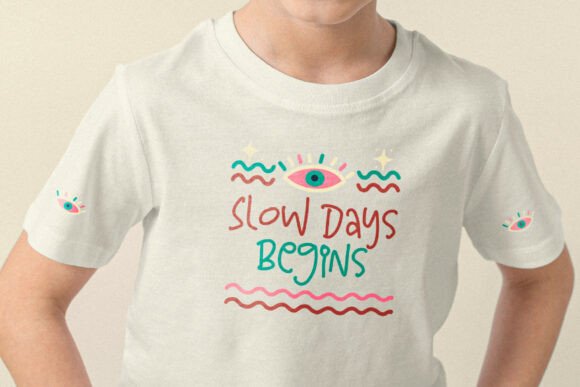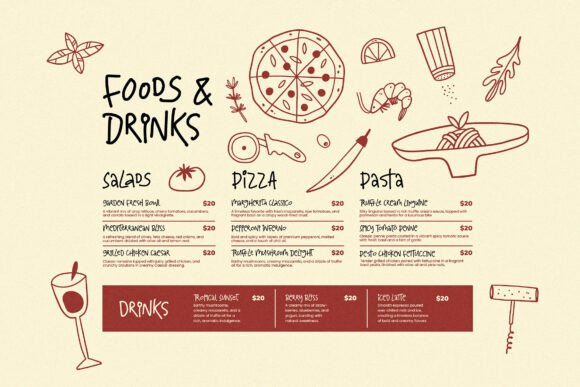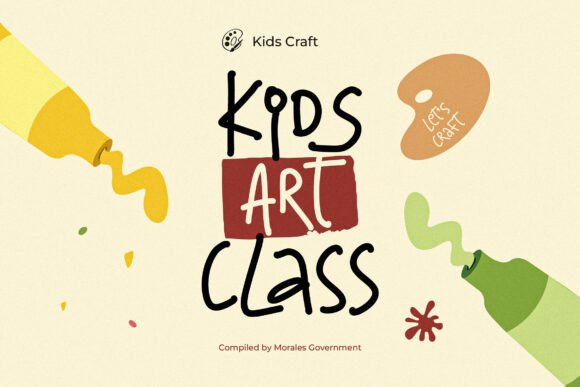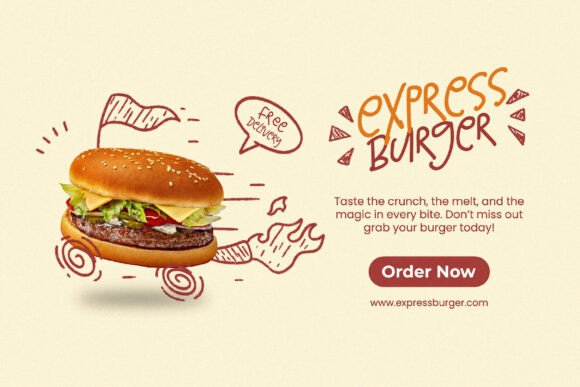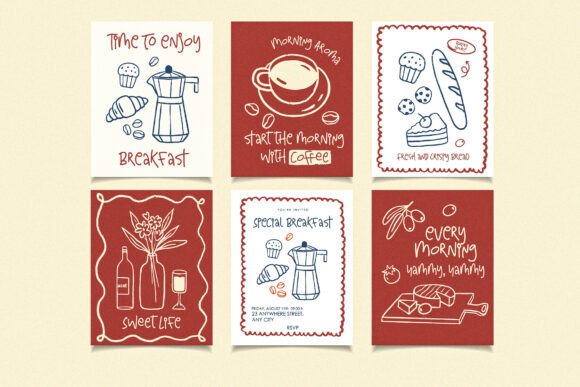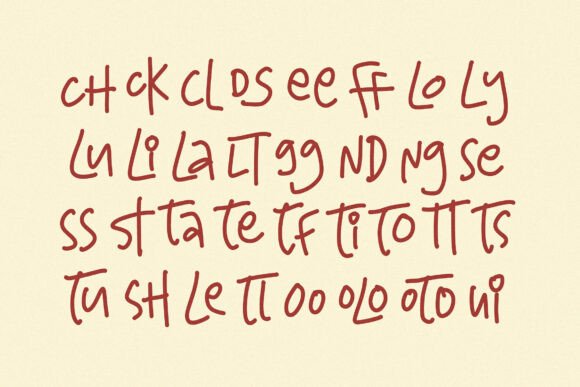
Where Handwritten Charm Meets Design
Have you ever been scribbling notes in a coffee shop, and the barista smiles as you hand them your order? The way they write down your name and the drink specials on the chalkboard – it’s a moment of human connection that can make all the difference. That’s the kind of warmth and personality we’re aiming for with the Kindly Crunch Font.
This delightful, random-style handwriting font is designed to capture the essence of natural handwriting, but with a playful twist that’s perfect for food branding, café menus, packaging, children’s designs, and creative illustrations. With 33 unique ligatures and multilingual support, the Kindly Crunch Font brings a friendly, human touch to every word you type. Its blend of natural imperfection and easy readability makes it a valuable addition to any designer’s toolkit.
Kindly Crunch Font Features
- Font Family: Kindly Crunch is a unique, hand-drawn sans-serif font family designed for various applications.
- Character Set: The font family includes a comprehensive set of characters, including uppercase and lowercase letters, numbers, punctuation, and special characters, covering multiple languages.
- Size and Resolution: Designed for optimal display at medium to large font sizes (14pt and above), with a recommended resolution of 300 DPI for print and 72 DPI for digital applications.
- Unique Characteristics: Kindly Crunch features a distinctive, rounded edge design, giving it a friendly and approachable feel, making it ideal for branding, advertising, and editorial content.
- Font Styles: The font family includes regular, italic, bold, and bold italic styles, providing flexibility for various design applications.
Kindly Crunch Font Review
Overall, I think the Kindly Crunch Font is a solid addition to any designer’s toolkit, but it’s not without its quirks. Let’s dive into what works well and what doesn’t.
- ✨ Friendly and approachable feel: The Kindly Crunch Font has a unique, rounded aesthetic that’s perfect for designs that need to feel welcoming and approachable.
- ✨ Versatile font styles: The font comes in a range of weights and styles, from light to bold, which makes it easy to customize for different design applications.
- ✨ High-quality vector files: The font files are well-optimized and easy to work with, which is a must for any professional designer.
- ⚠️ Limited language support: Unfortunately, the Kindly Crunch Font only supports a limited range of languages, which may be a problem for designers who need to create content in multiple languages.
- ⚠️ Not ideal for highly technical content: The font’s rounded aesthetic may not be the best choice for highly technical content, such as software manuals or scientific papers.
The Kindly Crunch Font is a great choice for designers who need a friendly and approachable font for their projects. While it may not be the best choice for every design application, it’s definitely worth considering for projects that require a warm and welcoming feel.
Kindly Crunch Font: A Practical Application Guide
Kindly Crunch Font is a versatile font that can be used for a variety of applications, including:
- Blogger and influencer branding
- Food and beverage packaging
For the best results, use Kindly Crunch Font in conjunction with bold, playful graphics and bright colors.
What is the recommended font size and line height for optimal readability with the Kindly Crunch Font?
The recommended font size for optimal readability with the Kindly Crunch Font is between 12 and 14 points. For body text, a line height of 1.2 to 1.5 times the font size is recommended. This will provide a clear and comfortable reading experience for your audience.